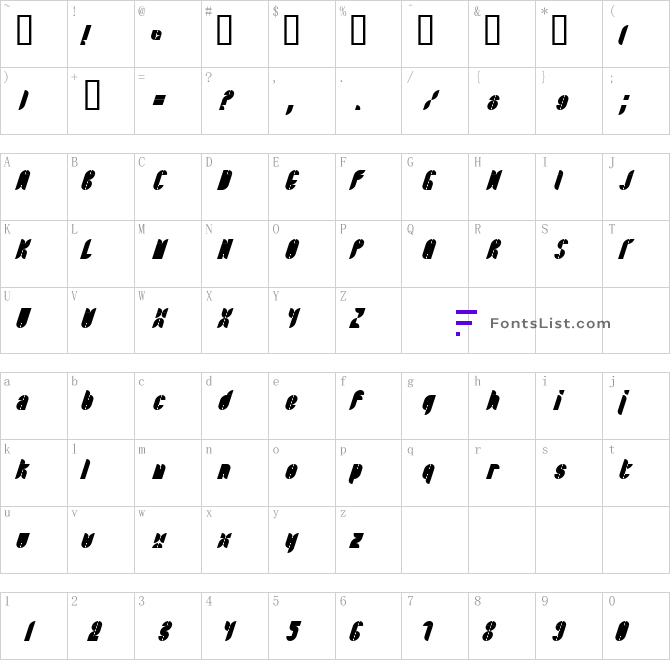
- Font Name:Bath
- Subfamily:BlackItalic
- Full Name:Bath BlackItalic
Bath-BlackItalic.ttf is a very beautiful artistic font, Bath-BlackItalic.ttf is widely used in the design and printing of various books and pictures,Bath-BlackItalic.ttf has a strong visual impact,Bath-BlackItalic.ttf is a commonly used font in newspapers, magazines and books, and is used in posters, e-commerce Poster design, store design, logo design, font design and other fields.Bath-BlackItalic.